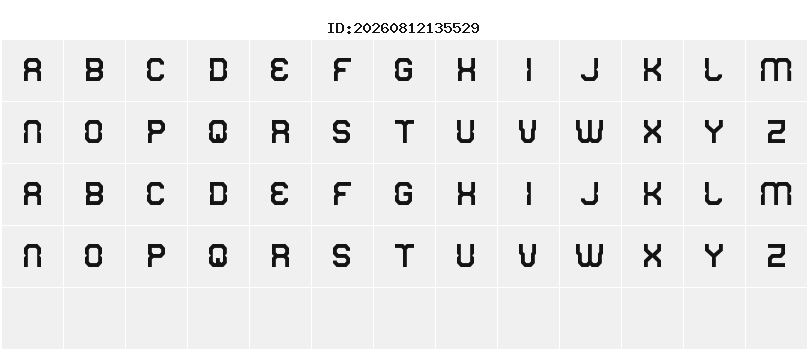
Rixon Preview
• Font Name: Rixon
• Font ID: Rixon:Version 1.00
• Full Font Name: Rixon
• Version: Version 1.00 February 26, 2013, initial release
• PostScript Name: Rixon
• Character Count: 54
• Designer: Carlos Matteoli
About Rixon.ttf
Rixon.ttf is a modern, elegant sans-serif font designed for ultimate readability and visual harmony. Perfect for branding, headlines, web design, and print materials.